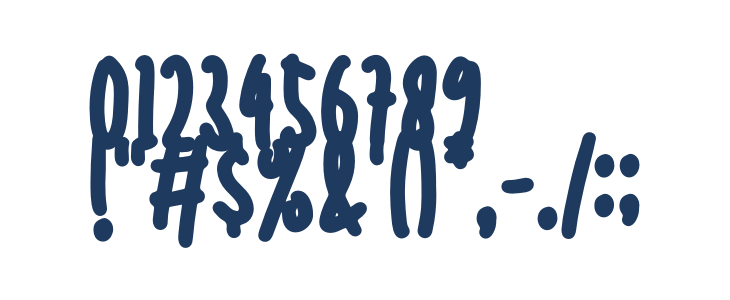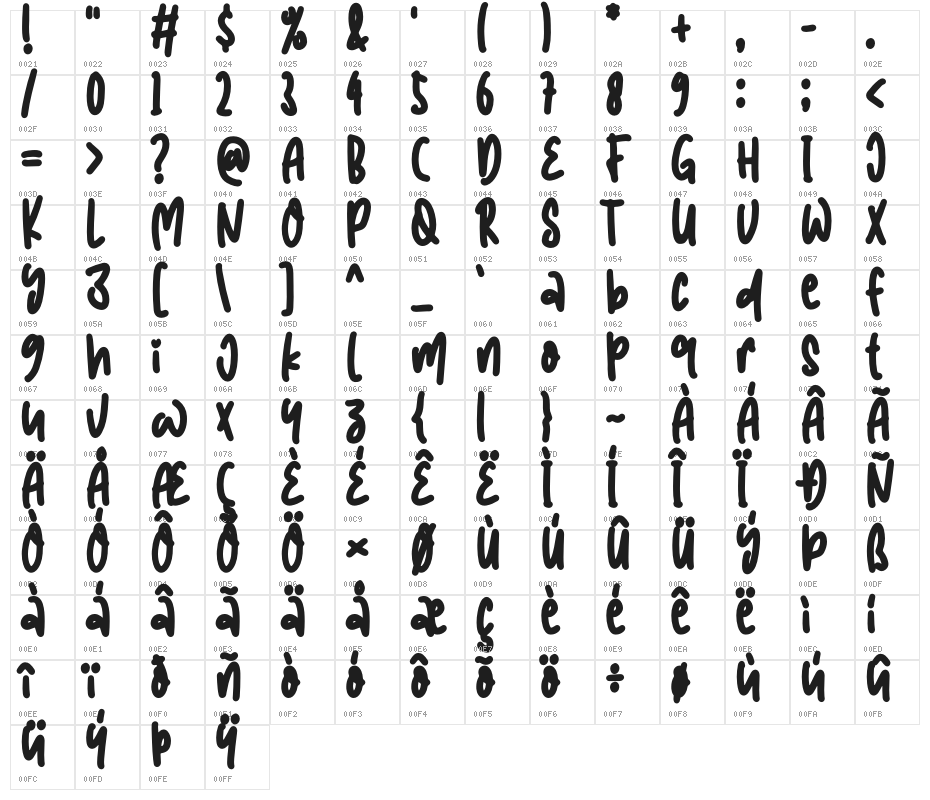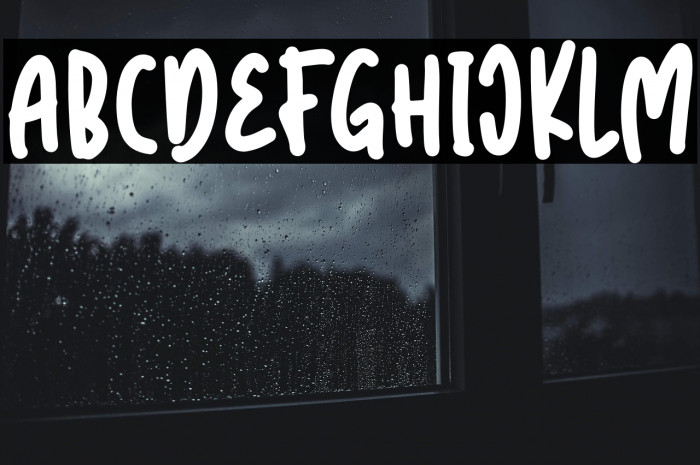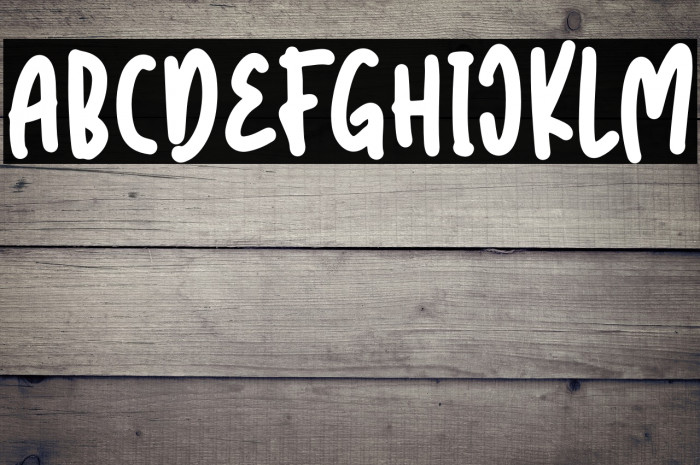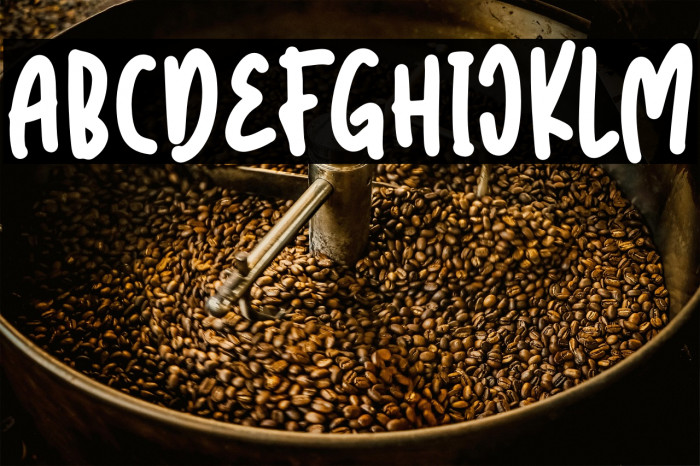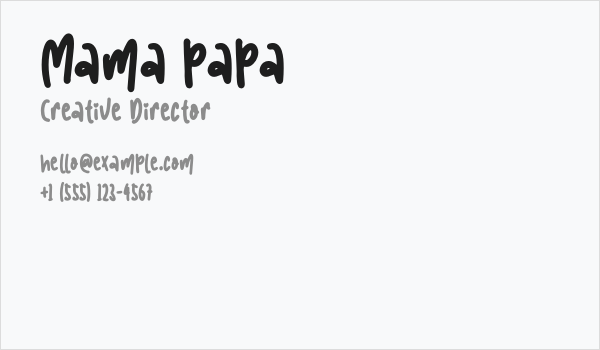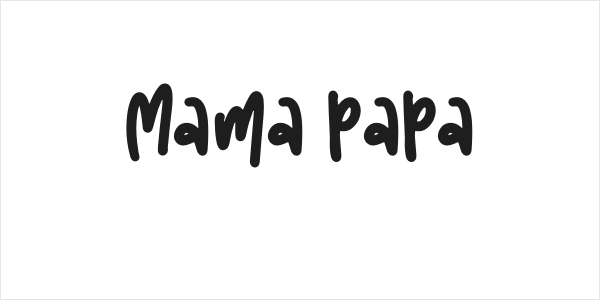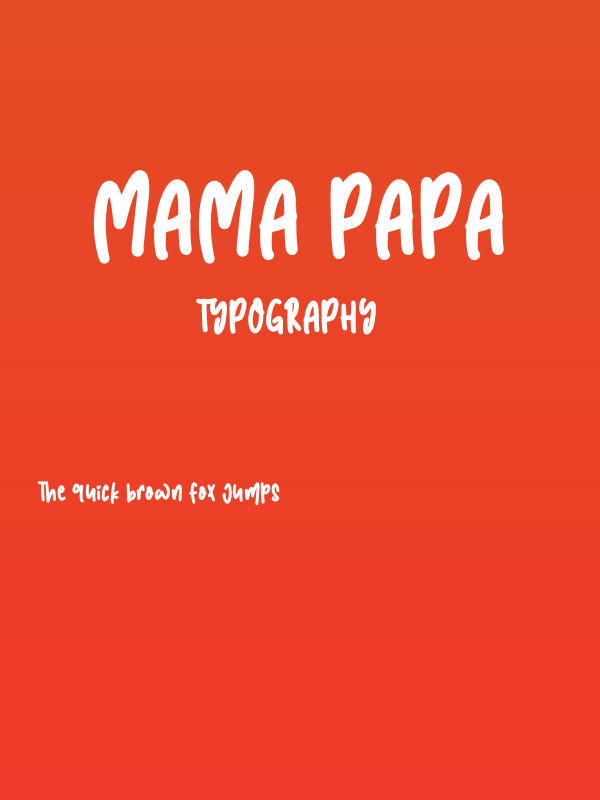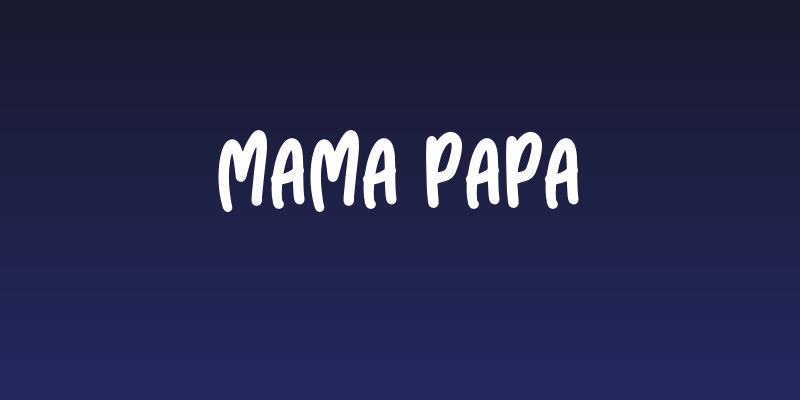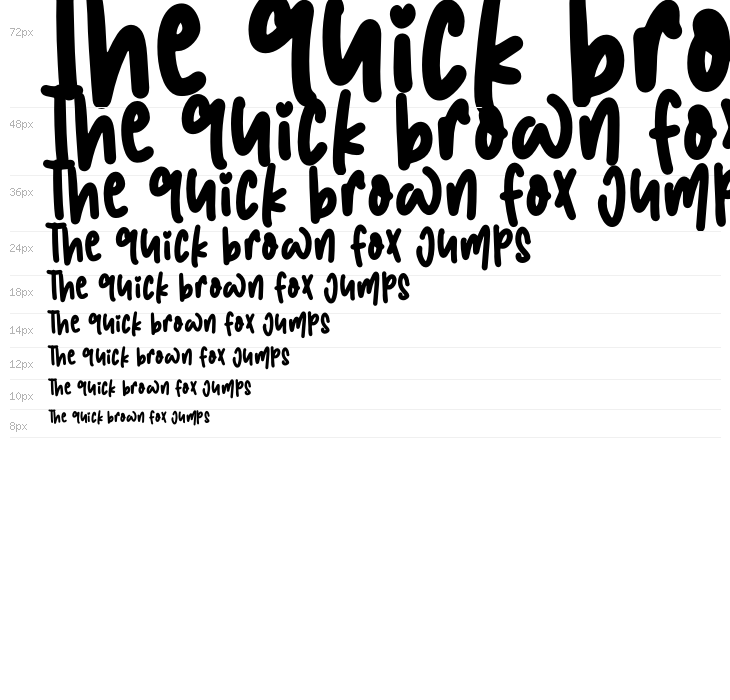
Mama papa Font
Mama papa Description
This font features a bold, playful handwritten style with a lively and energetic appearance. The characters are thick and rounded, giving a friendly and approachable feel. The uppercase and lowercase letters maintain a consistent style, with a slight slant that adds to the casual vibe. Numbers and special characters are equally bold, ensuring readability and uniformity across all glyphs. The strokes are smooth and fluid, creating a sense of movement and dynamism. This font is perfect for projects that require a personal touch or a fun, informal aesthetic.
Overall StylePlayful, Casual
Use CaseHeadlines, Logos, Informal Text
Proposed ProjectsIdeal for children's books, greeting cards, playful branding, and social media graphics.